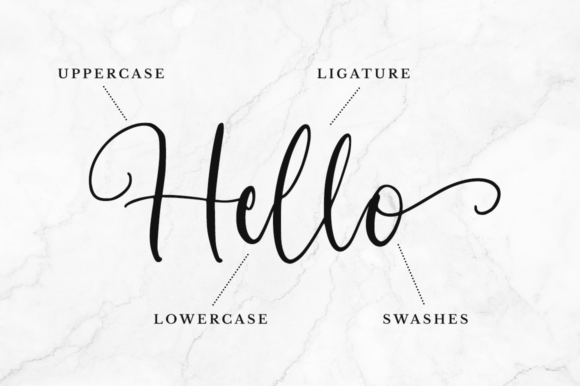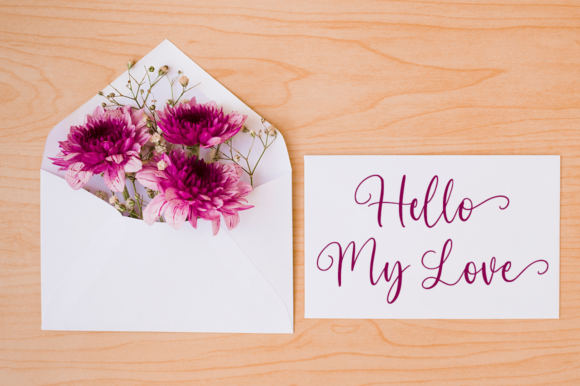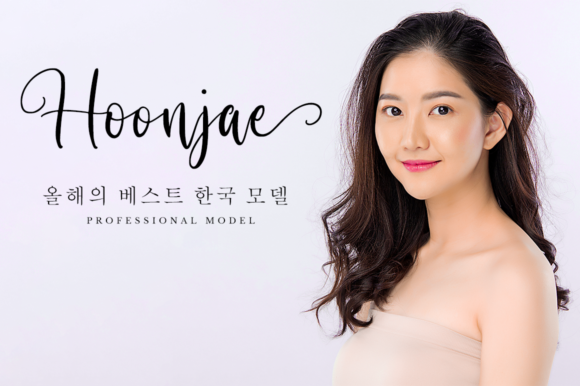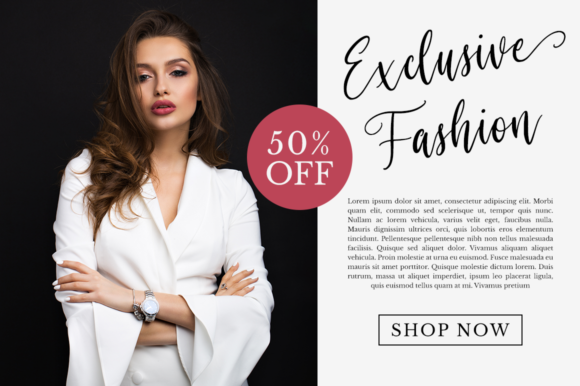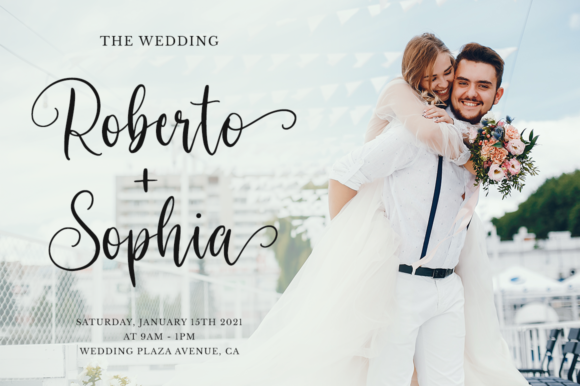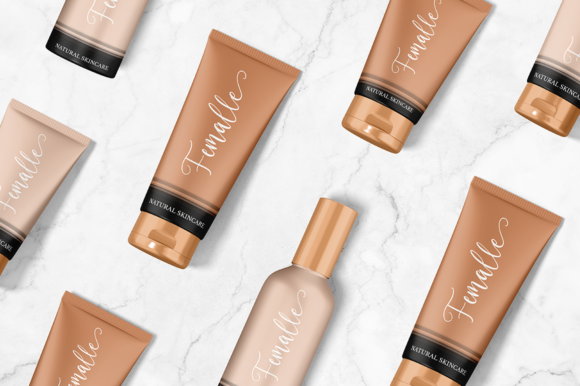
Discover the Elegance of Angellove Font: Elevate Your DIY Projects with Style
In the world of typography, fonts play a crucial role in conveying messages, evoking emotions, and setting the tone for various projects. For designers, crafters, and DIY enthusiasts, finding the perfect font can be a game-changer. If you’re on the hunt for a beautiful, elegant, and modern script font, look no further than Angellove Font. This stunning font is designed to add a touch of sophistication and class to your projects, making it an ideal choice for those who strive for excellence.
The Beauty of Angellove Font
Angellove Font is a masterpiece of typographic design, boasting a modern and classy look that is sure to captivate your audience. Its elegant script style, characterized by smooth lines, gorgeous glyphs, and stunning alternates, makes it perfect for a wide range of DIY projects. Whether you’re working on crafting, scrapbooking, or any other creative endeavor, Angellove Font is sure to add a touch of elegance and refinement.
What Sets Angellove Font Apart?
So, what makes Angellove Font stand out from the rest? Here are a few key features that set it apart:
• PUA Encoding: Angellove Font is PUA (Private Use Area) encoded, which means you can access all the glyphs and swashes with ease. This feature allows you to unlock the full potential of the font, giving you more creative freedom and flexibility.
• Varying Baseline: The font features a varying baseline, which adds a touch of organic and handmade feel to your projects. This subtle detail can make a significant difference in creating a unique and eye-catching design.
• Smooth Lines and Glyphs: Angellove Font boasts smooth lines and gorgeous glyphs, ensuring that your text looks crisp, clear, and visually appealing. The font’s attention to detail is evident in its beautiful swashes and alternates.
• Stunning Alternates: With a range of stunning alternates, you can add variety and interest to your text. Whether you want to create a bold statement or a subtle design, Angellove Font has got you covered.
Angellove Font is an excellent choice for designers and crafters who want to elevate their projects with a touch of elegance and sophistication. Whether you’re working on:
• Digital projects, such as social media graphics, blog posts, or website designs
• Print projects, like brochures, flyers, or business cards
• Crafting projects, such as scrapbooking, card making, or DIY decor
Angellove Font is sure to impress. Its versatility and flexibility make it an excellent addition to any design or crafting arsenal.
Tips for Using Angellove Font
To get the most out of Angellove Font, here are a few tips to keep in mind:
• Experiment with different sizes and colors: Angellove Font looks great in various sizes and colors. Don’t be afraid to experiment and find the perfect combination for your project.
• Mix and match with other fonts: Angellove Font pairs well with other fonts, so feel free to get creative and combine it with other typography to create a unique look.
• Take advantage of swashes and alternates: With its PUA encoding, you can easily access the font’s gorgeous swashes and alternates. Use them to add a touch of personality and flair to your design.
Angellove Font is a beautiful, elegant, and modern script font that’s perfect for designers, crafters, and DIY enthusiasts. Its stunning design, PUA encoding, and range of features make it an excellent choice for anyone looking to elevate their projects with style and sophistication. Whether you’re working on digital or print projects, Angellove Font is sure to impress. So why wait? Discover the elegance of Angellove Font today and take your designs to the next level!